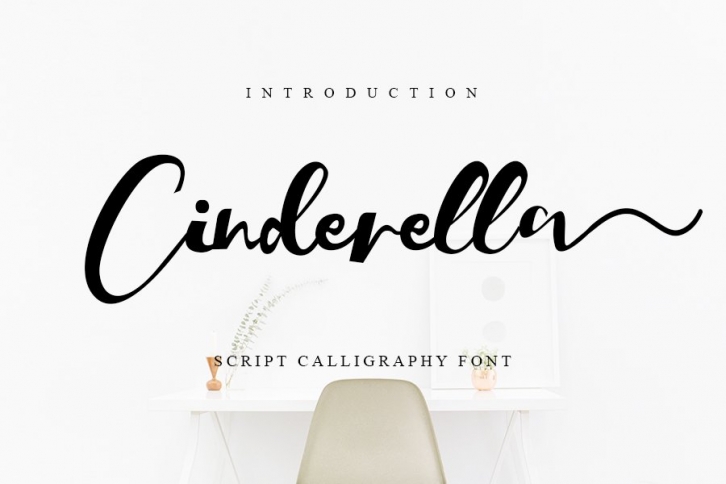
Cinderella is a beautiful font that was designed by NYA Letter. It's a great choice for designers and creatives who need such a font. It was released on October 31, 2020 and the file size is 1.85 MB. Cinderella may give a more youthful, expressive and casual look to your project. It is a very beautiful, refined, elegant, and high-quality font.